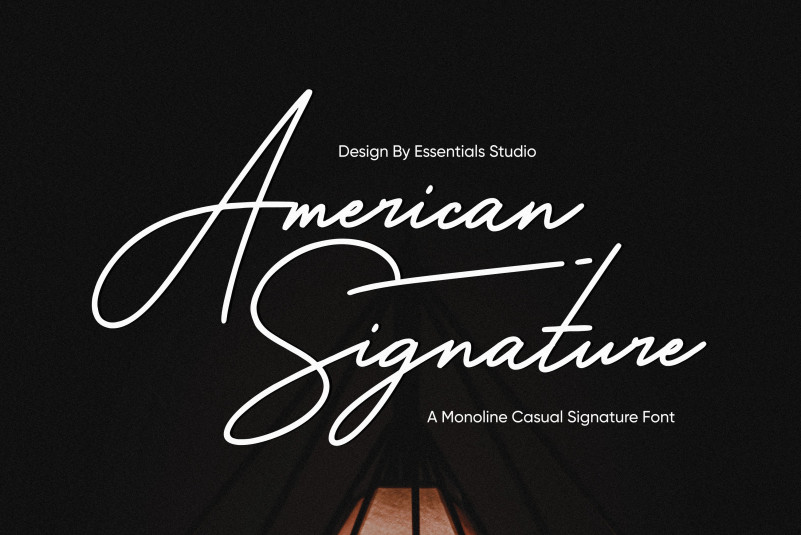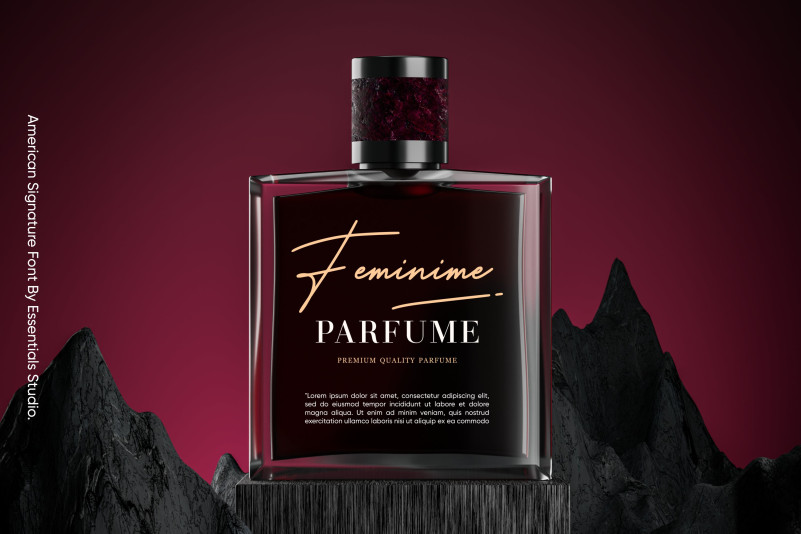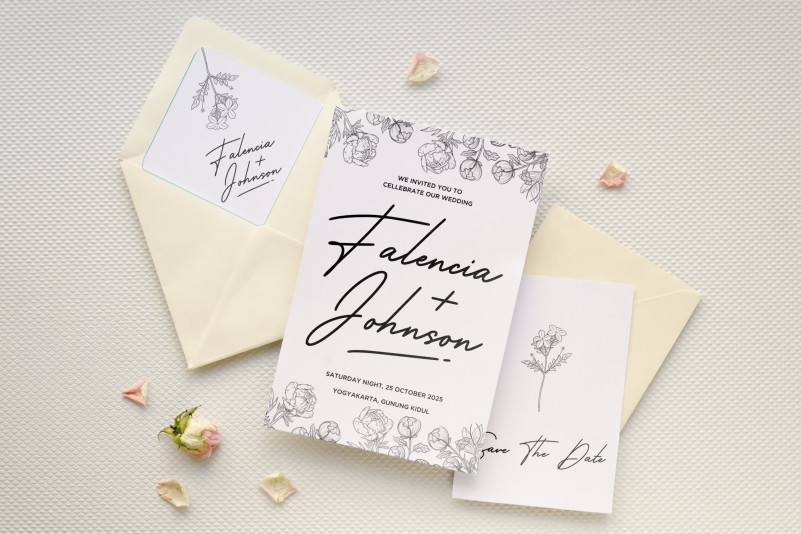
American Signature Font
American Signature Font is a lovely and delicate script font that exudes elegance and class. This font was particularly crafted for those who need a beautiful and refreshing look to their designs. American Signature is PUA encoded which means you can access all the glyphs and swashes with ease!